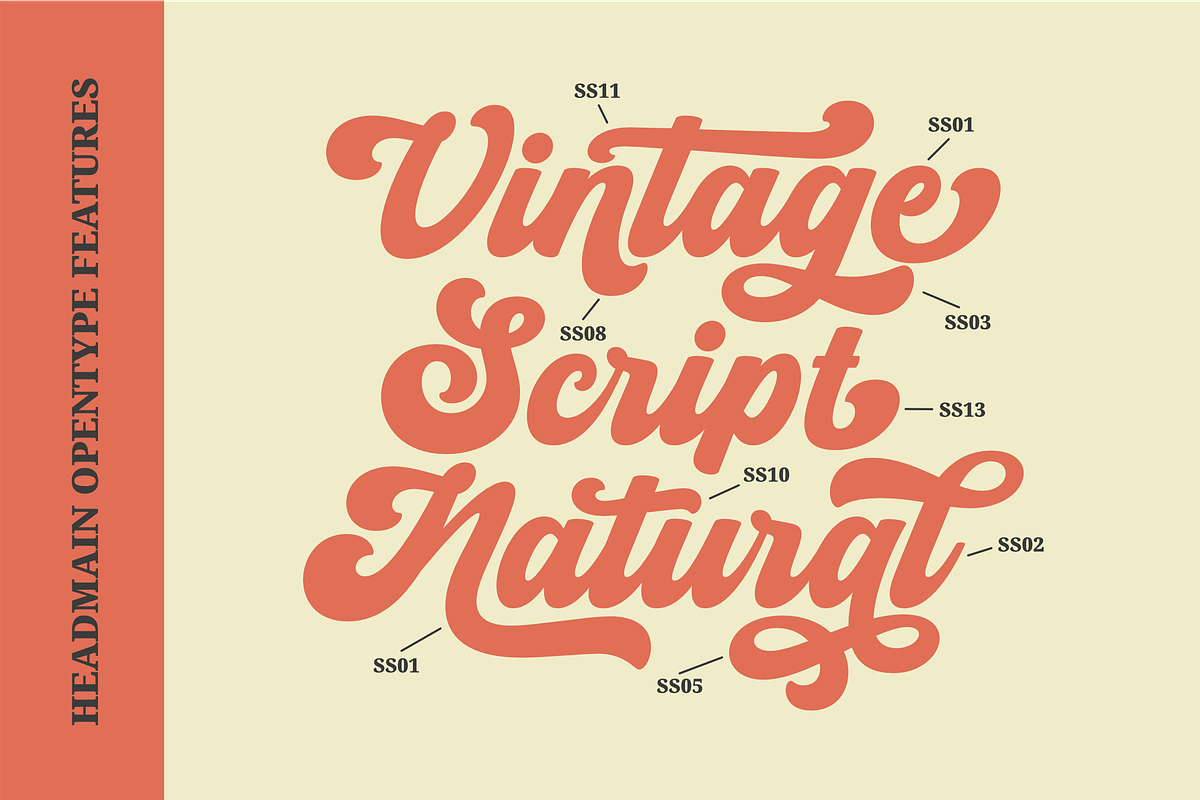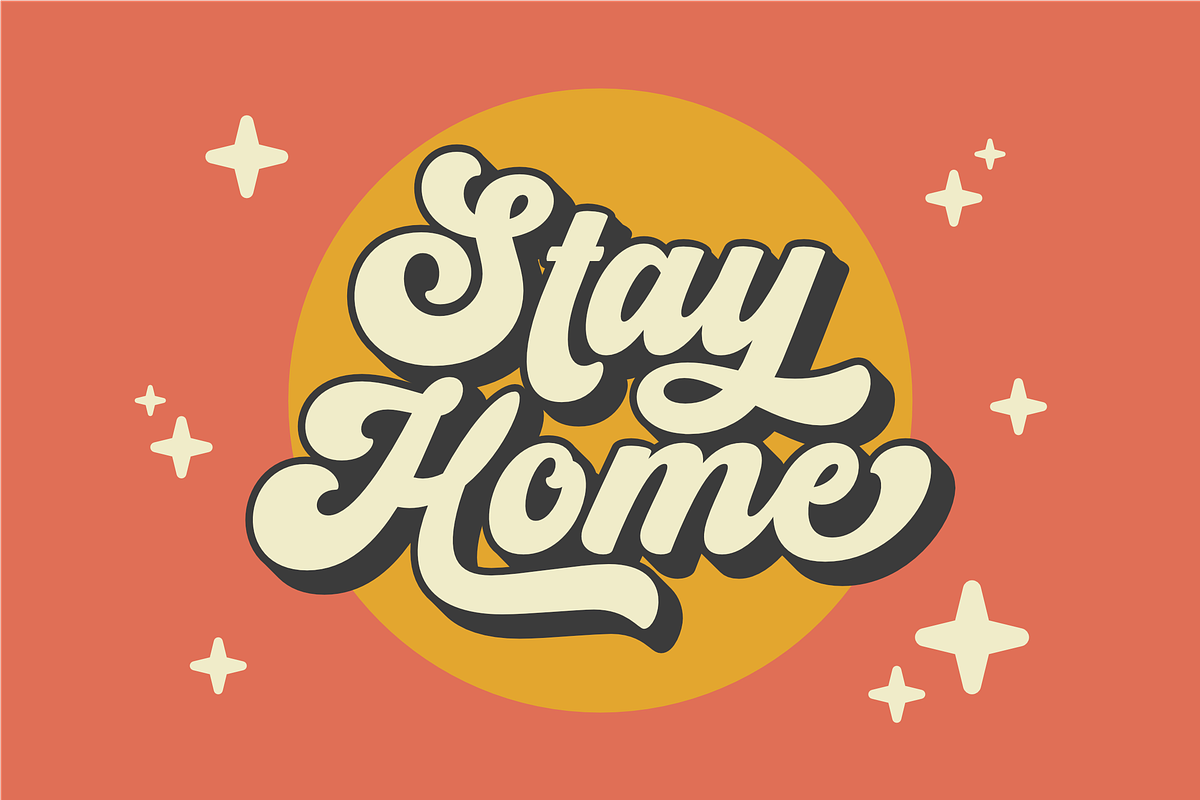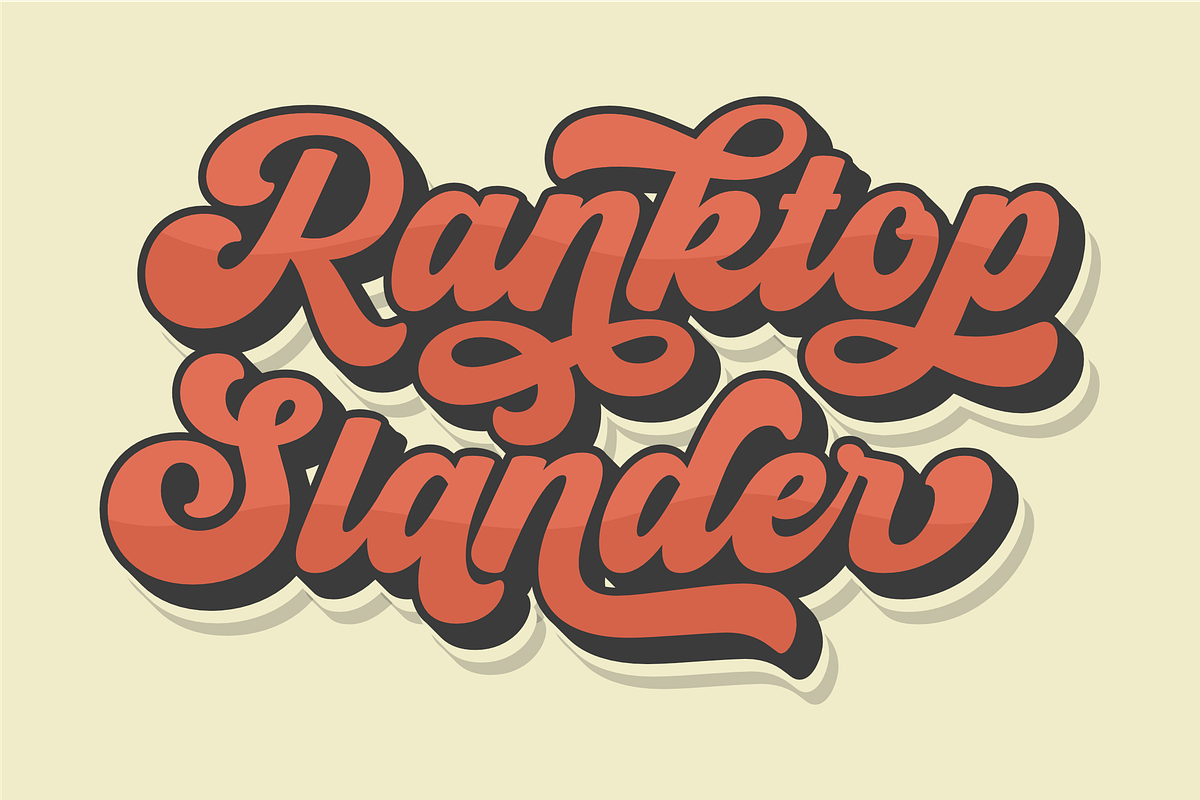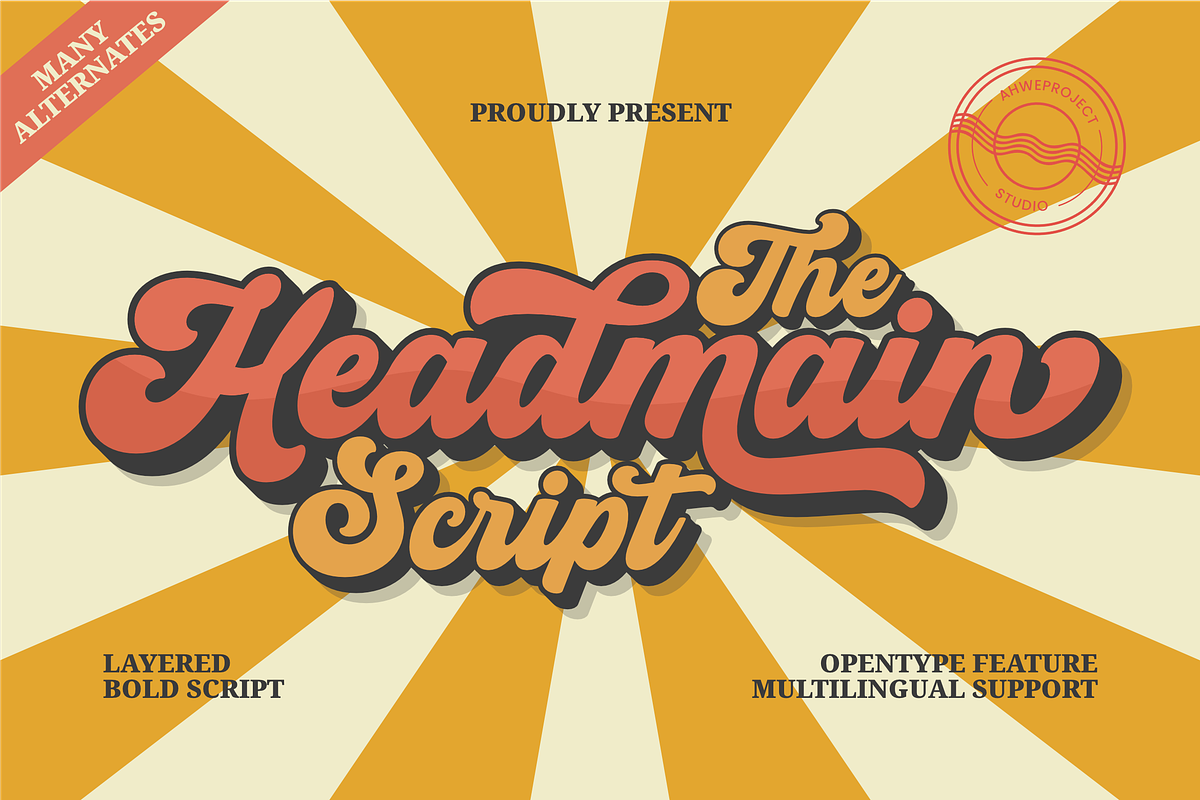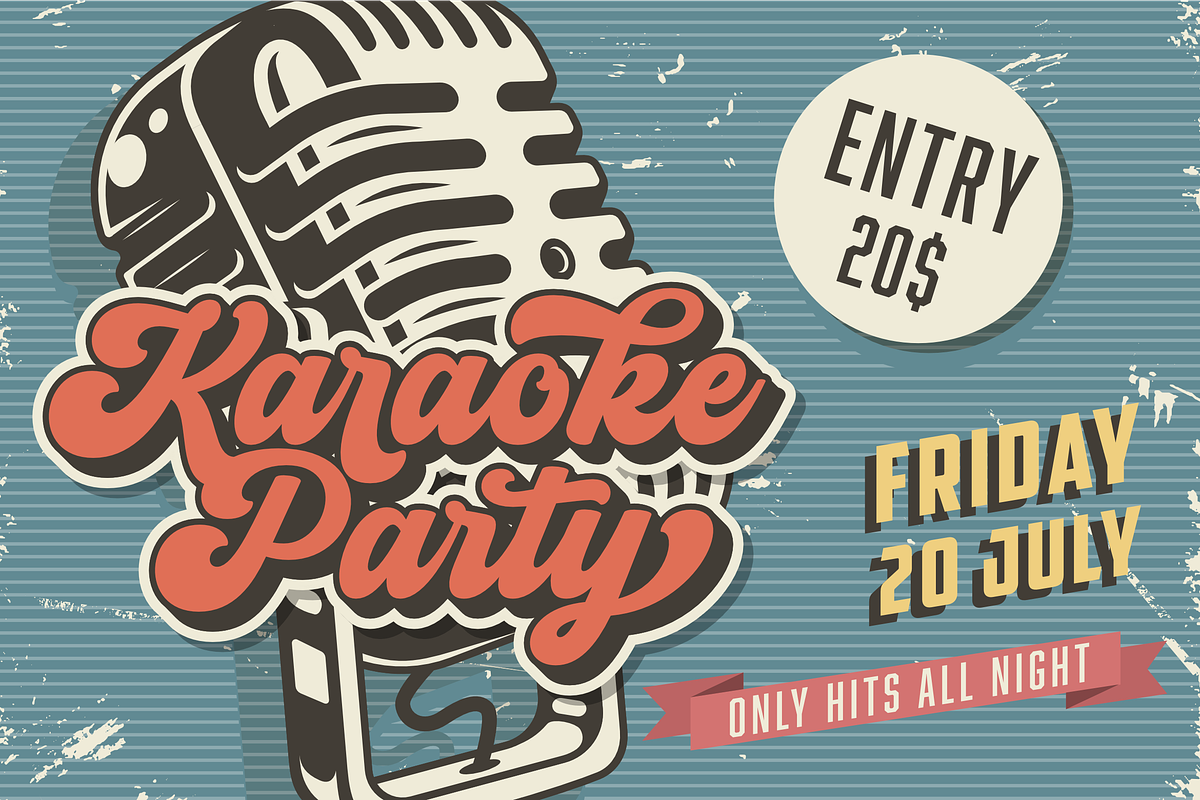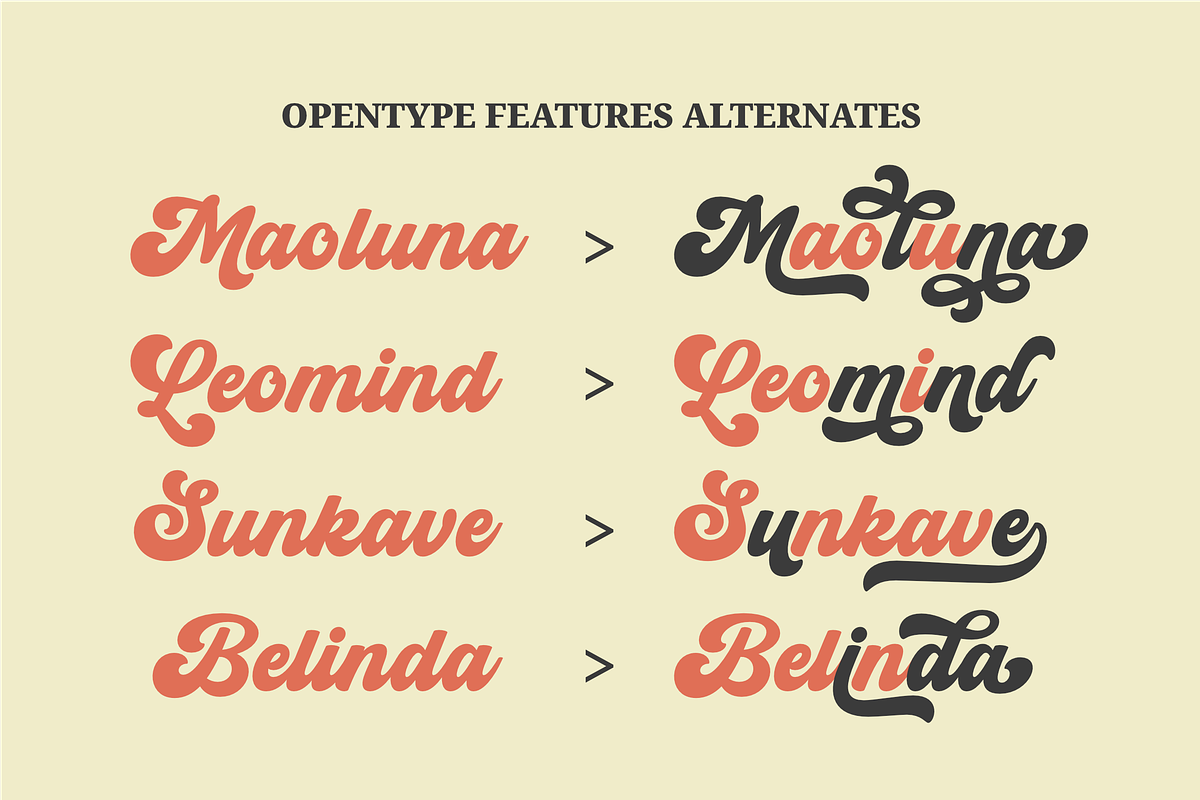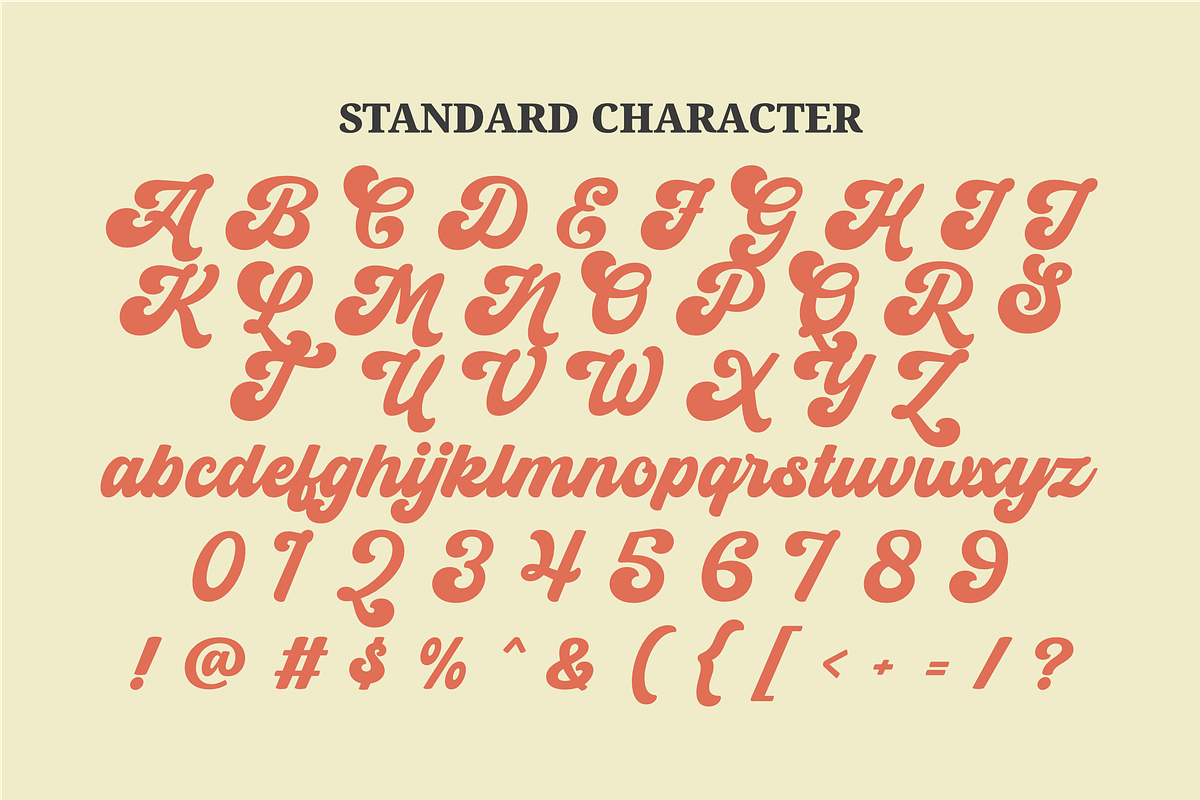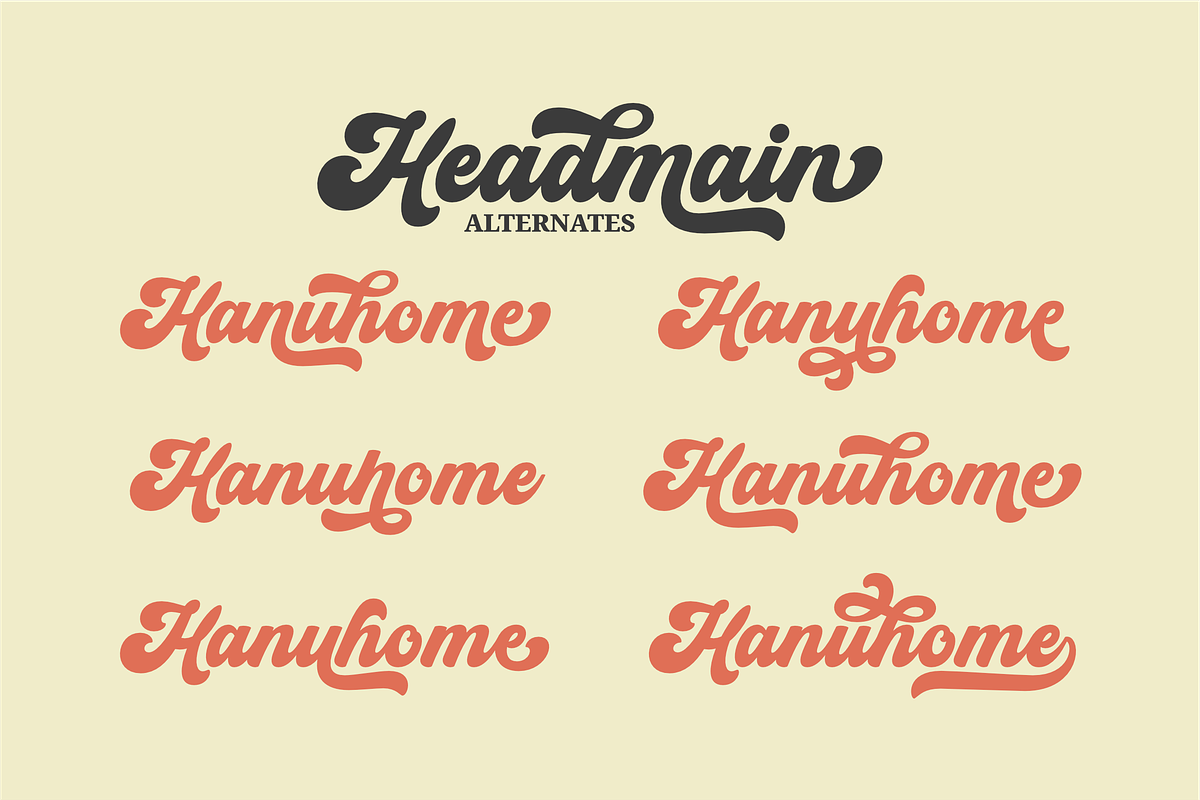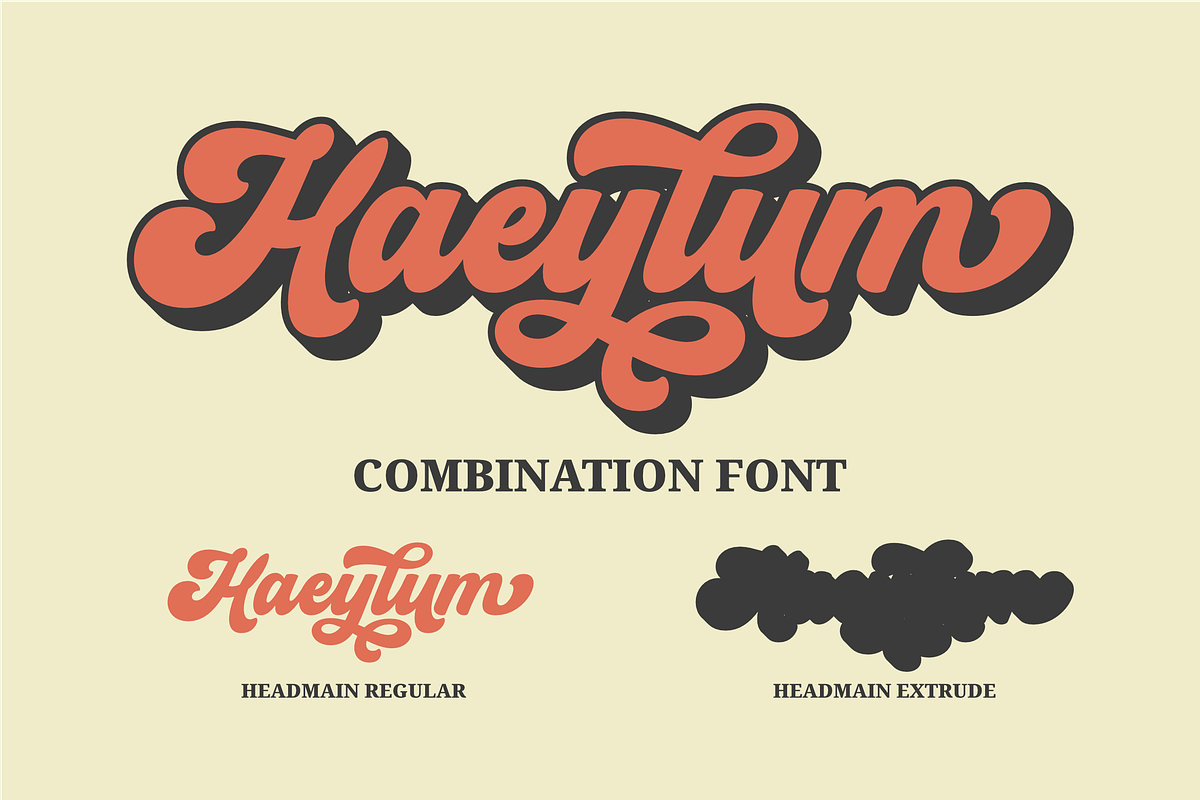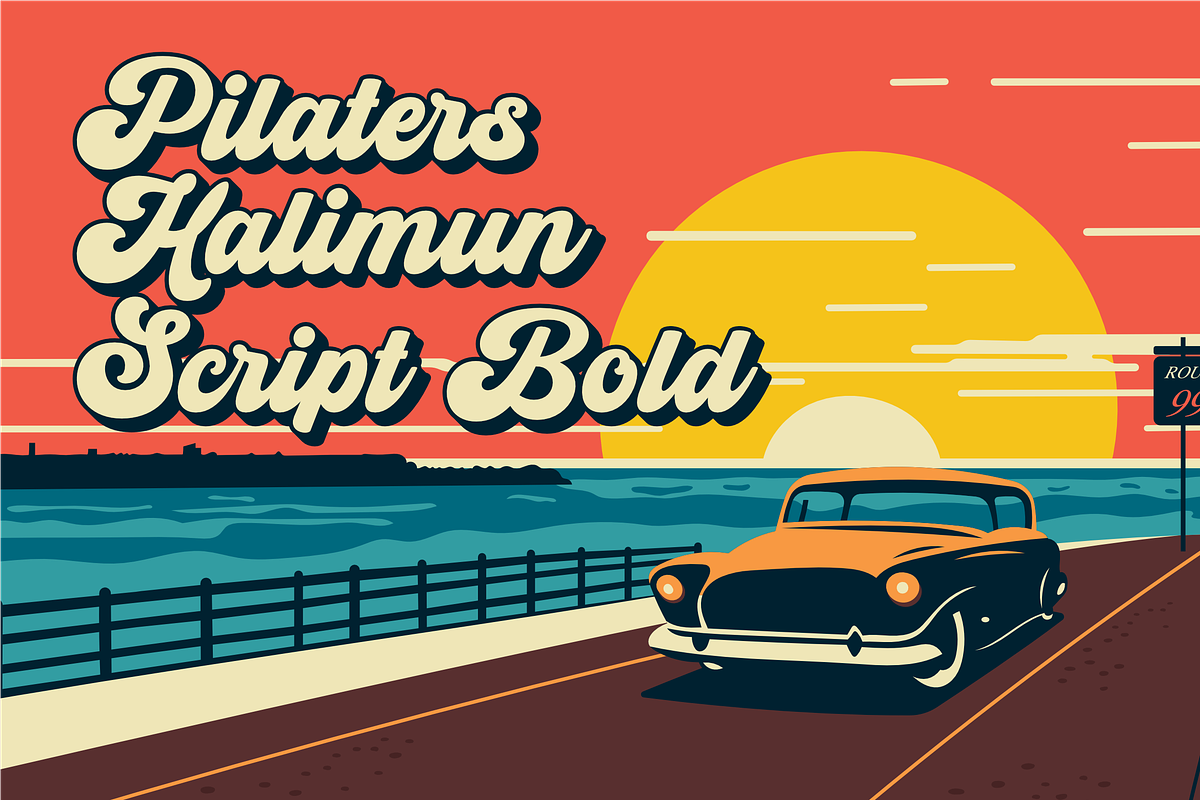
Headmain
Headmain Script is a bold and dynamic layered script font with a strong retro vibe. Its fluid curves and thick strokes create a striking and energetic look, making it perfect for eye-catching headlines, branding, posters, and vintage-inspired designs. With multiple alternates and OpenType features, Headmain Script offers versatility and customization, allowing you to craft unique and expressive typography. The layered style enhances depth and impact, making it ideal for projects that require a bold yet stylish statement. Additionally, this font supports multiple languages, ensuring global usability.